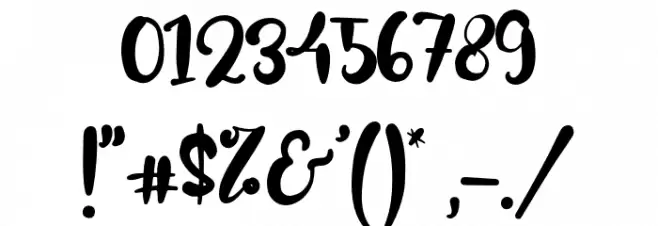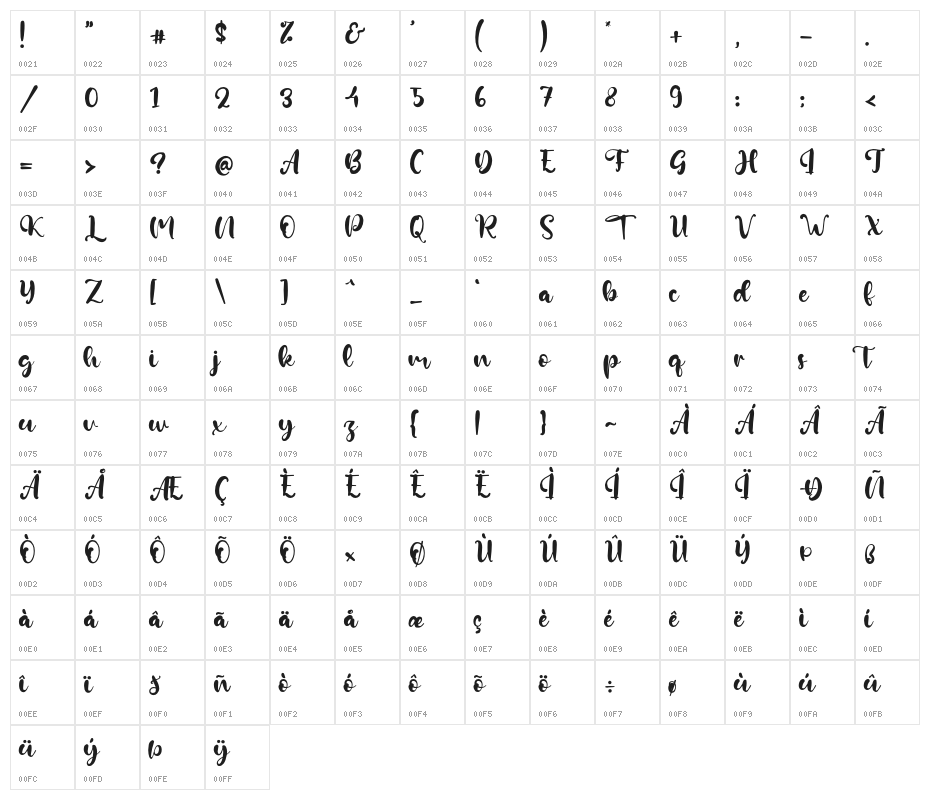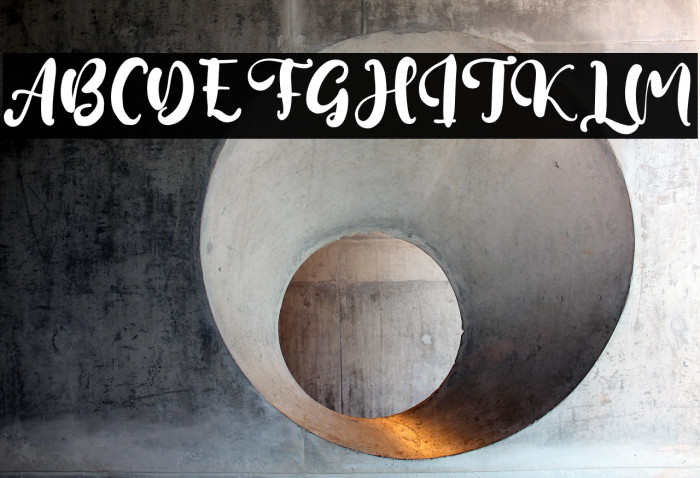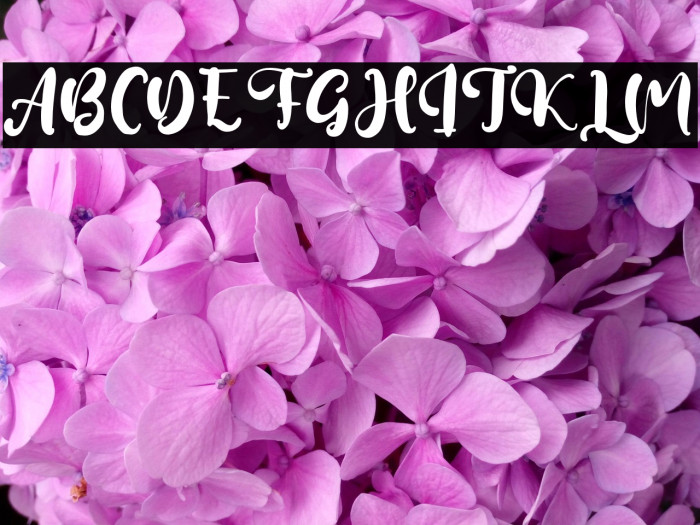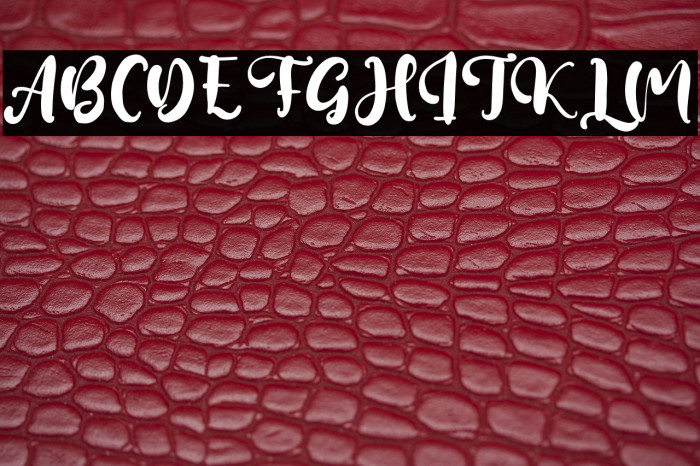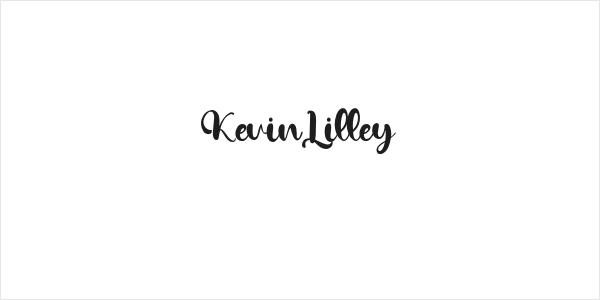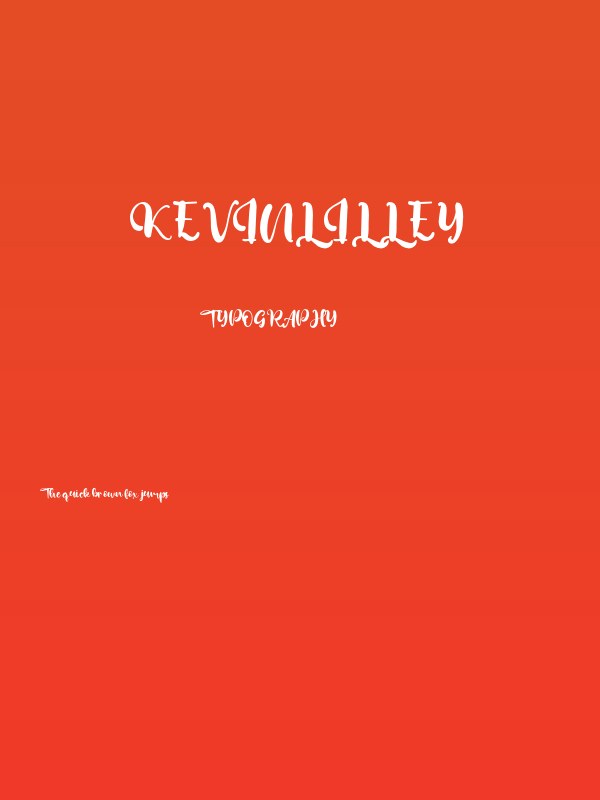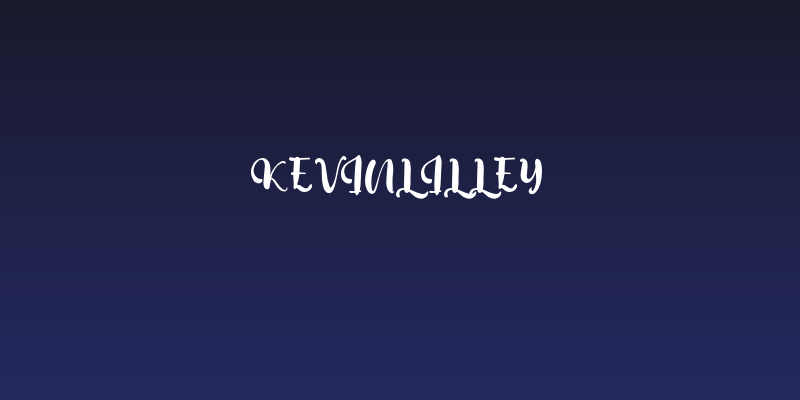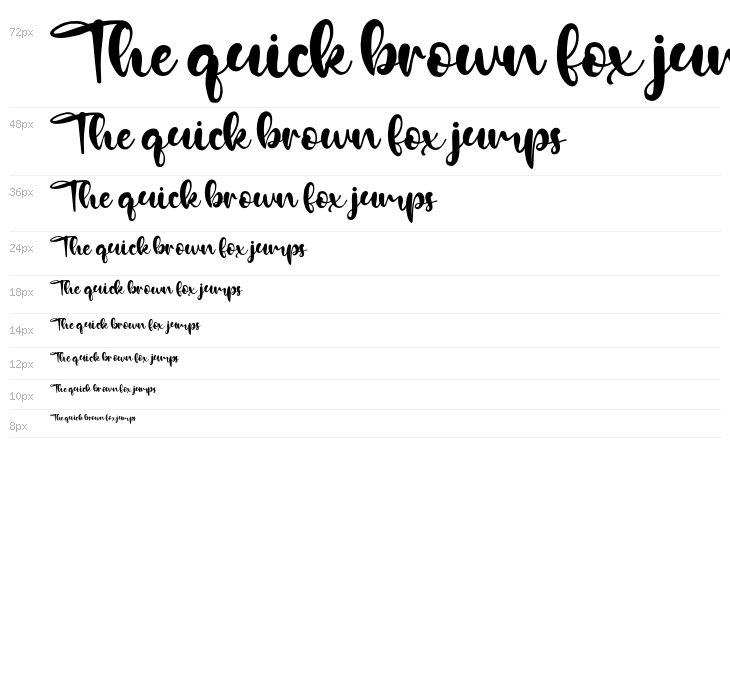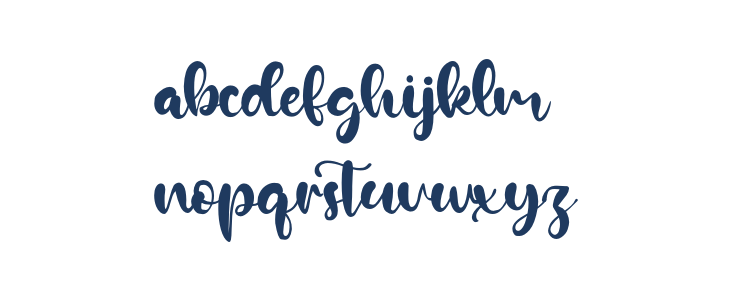
KevinLilley Font
KevinLilley Description
This font features a playful and elegant script style with a handwritten appearance. The characters are fluid and connected, giving a sense of motion and personality. The uppercase letters are bold and expressive, while the lowercase letters maintain a consistent flow with occasional loops and flourishes. The numbers are rounded and maintain the same playful style as the letters. Special characters are creatively integrated, enhancing the font's overall charm. This font is ideal for projects that require a personal touch, such as invitations, greeting cards, and branding materials.
A playful and elegant script font with a handwritten style from Uncategorized fonts.
- Proposed Projects: Ideal for invitations, greeting cards, branding, and personal projects.
- Use Case: Logos, Headlines, Invitations